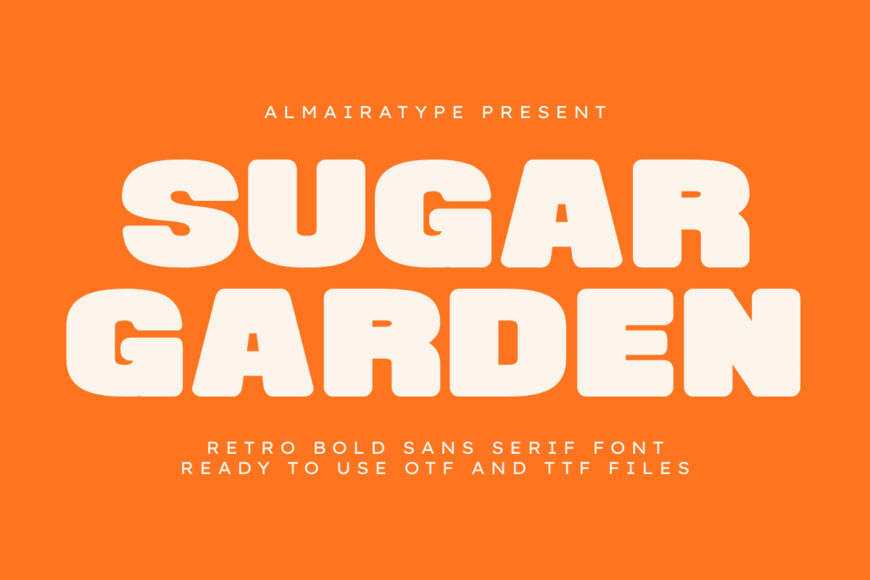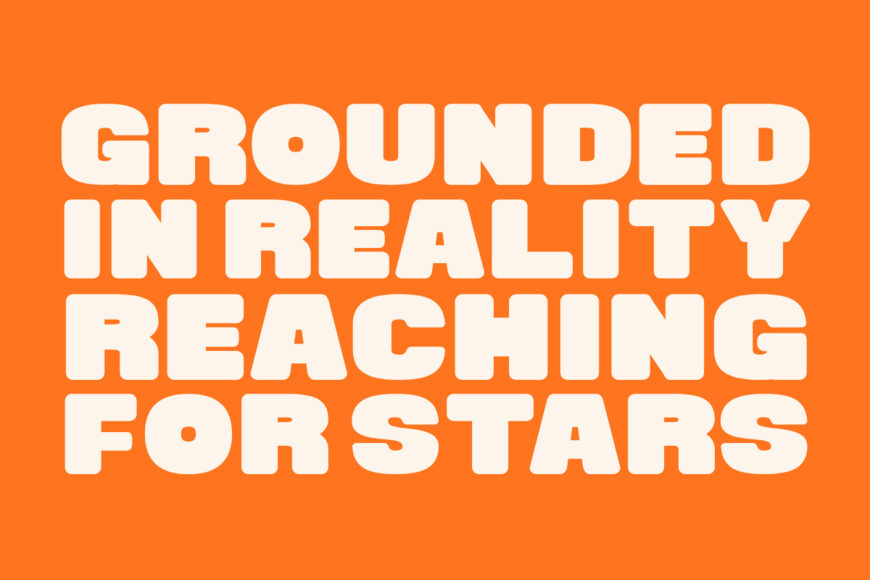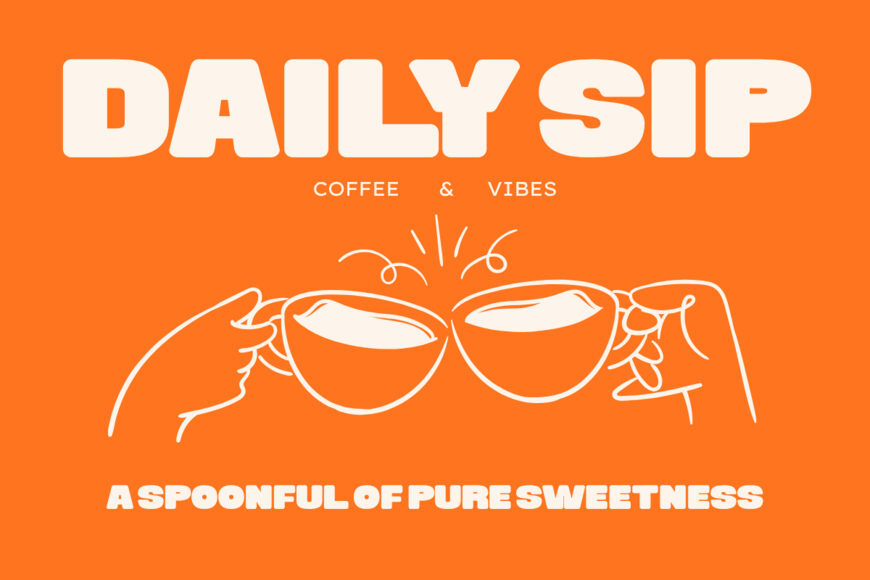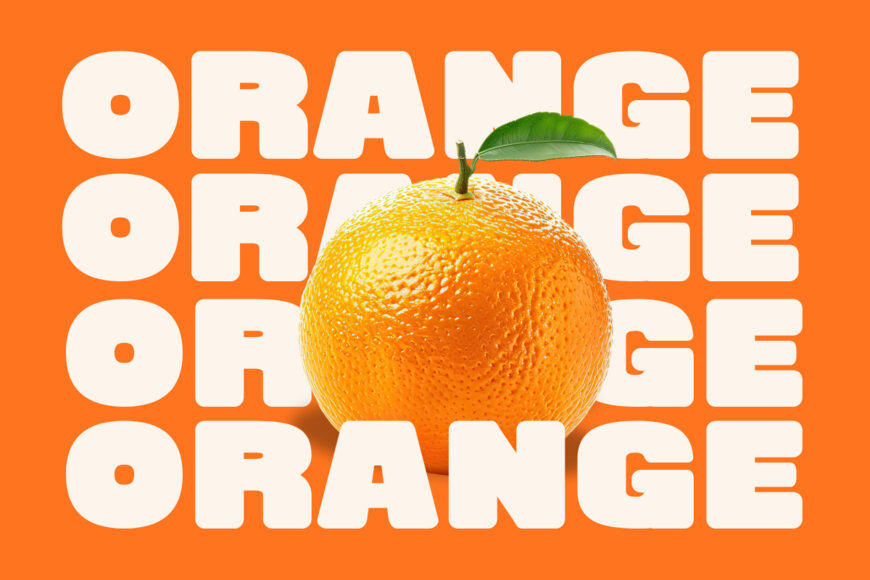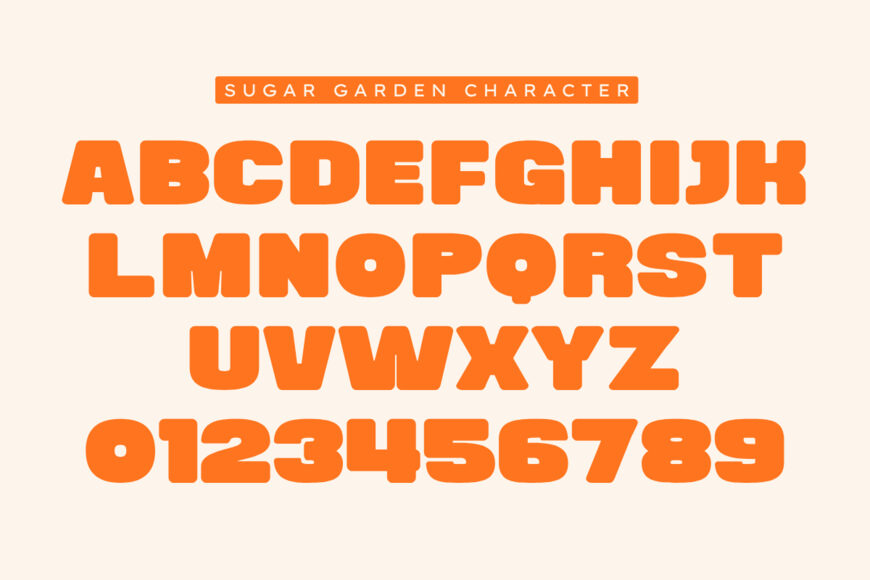
Sugar Garden is a bold retro sans serif font designed to make headlines stand out with confident, nostalgic charm. Its ultra-heavy display style, sturdy baselines, and softly rounded corners combine vintage warmth with a clean, contemporary urban feel. Perfect for streetwear, food and lifestyle branding, commercial graphics, and print-on-demand products, Sugar Garden offers excellent readability and strong visual appeal.